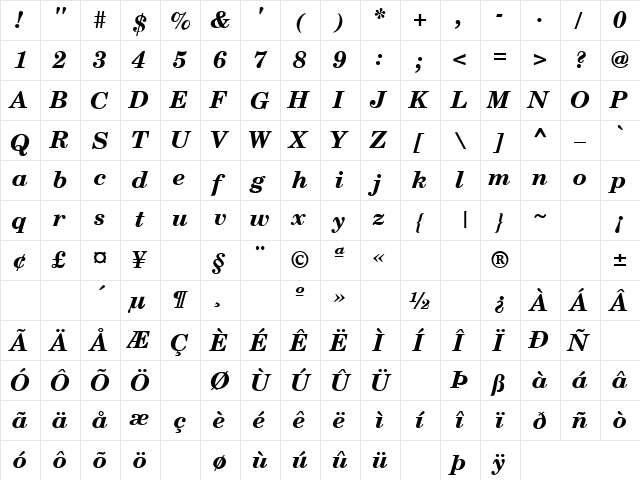
Uncle Salty 7 Regular
Design Context for Uncle Salty 7 Typeface
Uncle Salty 7 offers clean, dependable letterforms without strong stylistic allegiance, making it a practical choice for designers who need flexibility.